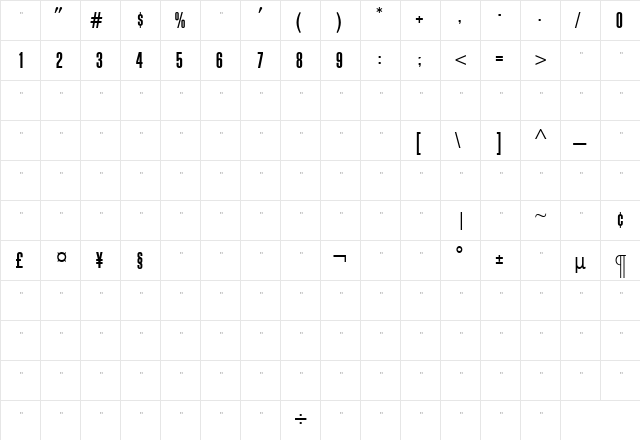
BlockGothicDemiExtraCondTab Roman Font Preview
Design Context for BlockGothicDemiExtraCondTab Typeface
BlockGothicDemiExtraCondTab takes a clean, functional approach — its unadorned letterforms prioritise legibility and work reliably across screen and print environments. The condensed width makes it efficient for tight spaces without sacrificing legibility.
Font Pairing: Works well alongside a characterful serif or display font that can carry the expressive load while BlockGothicDemiExtraCondTab handles the functional copy.
Pro Tip: Use BlockGothicDemiExtraCondTab tightly set in headlines and banners — its condensed proportions make it ideal for maximum impact in minimum horizontal space.